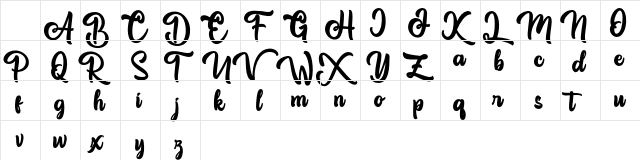
Great Himalaya is a composed and adaptable typeface that performs quietly and consistently across a wide range of design contexts.
Pro Tip: Use Great Himalaya in both headline and body roles to test its range before committing to a single application.